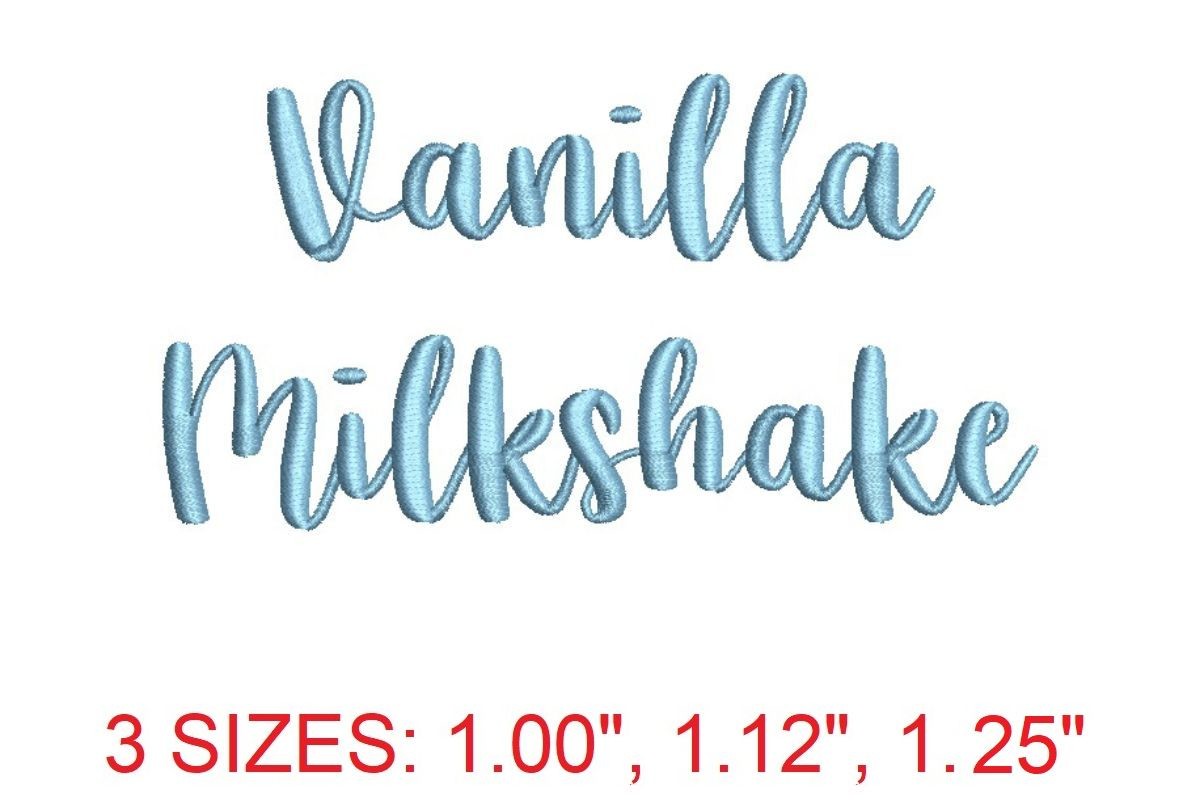
Vanilla Milkshake Embroidery Font
Introducing the delightful “Vanilla Milkshake” embroidery font, a perfect choice for adding a touch of sweetness and whimsy to your stitching projects. The Vanilla Milkshake font features playful and charming letterforms with a delightful swirl, making it ideal for monograms, names, or any text-based designs that demand a standout appearance. Whether you’re a professional embroiderer or a passionate hobbyist, the Vanilla Milkshake embroidery font is a must-have tool to bring a smile to your stitching. Please note: The sizes and stitches information shown below is for “A” and “a” in each size. This is provided as a summary of what is available in this download file. For the full dimension details of the 156 letters in this set, click on the More Sewing Info (PDF) button on this page. This machine embroidery design comes with multiple embroidery file formats and can be used with multiple embroidery machines.